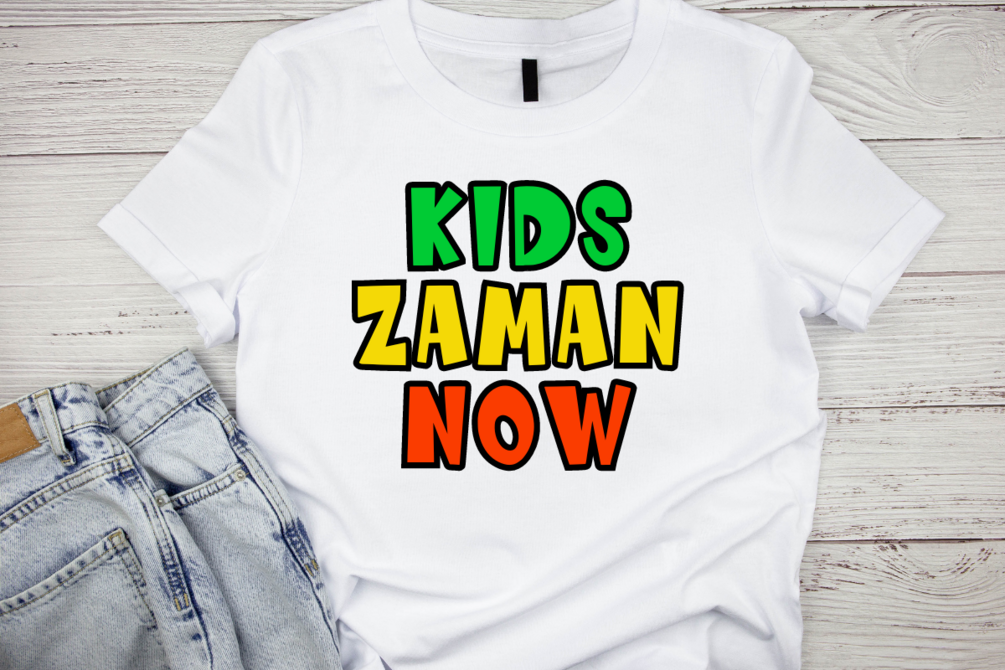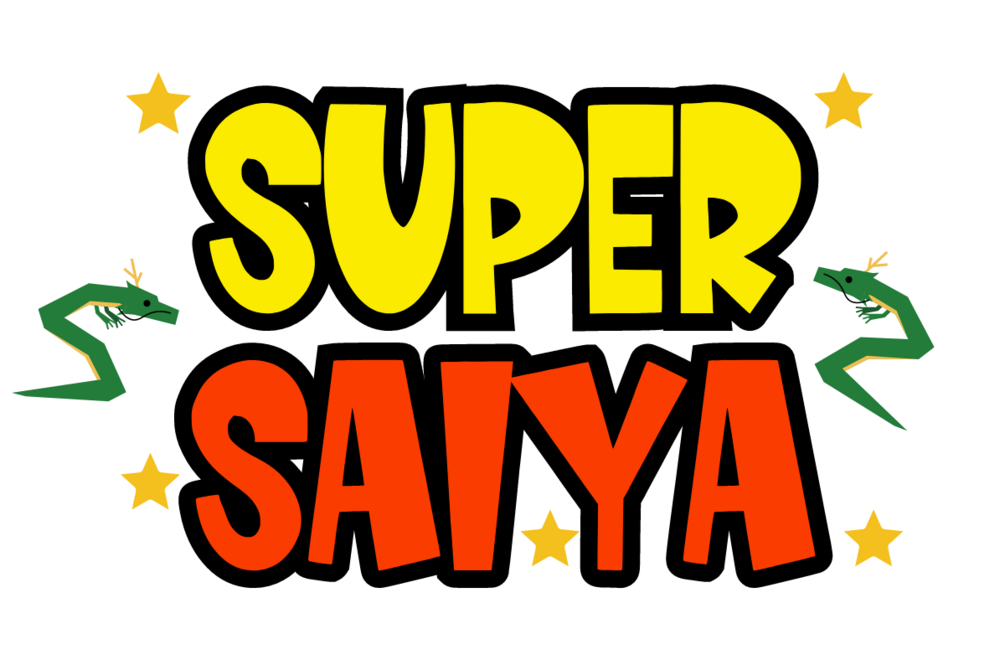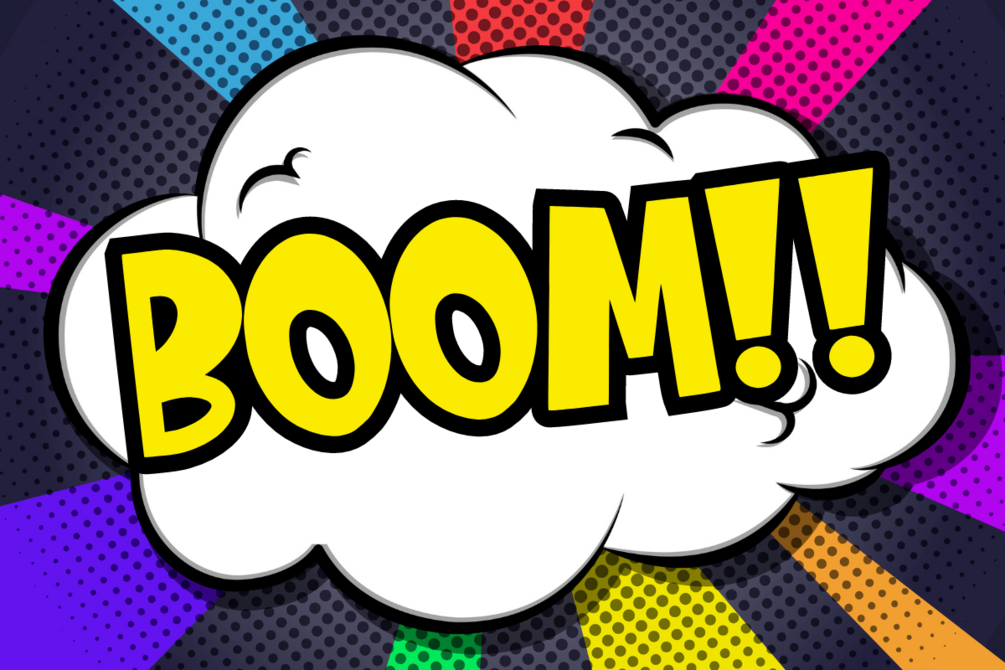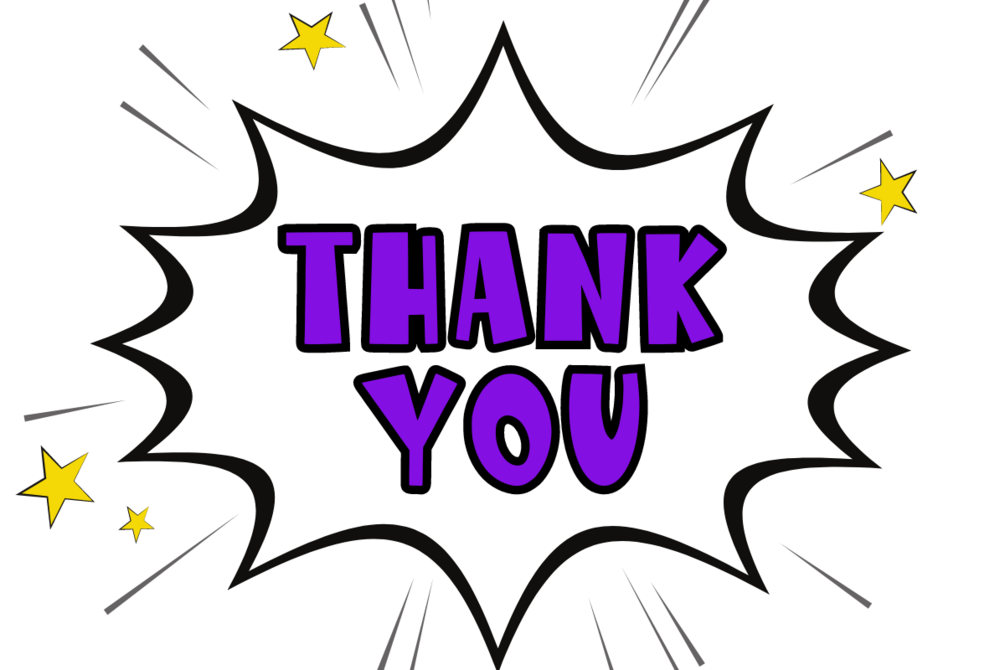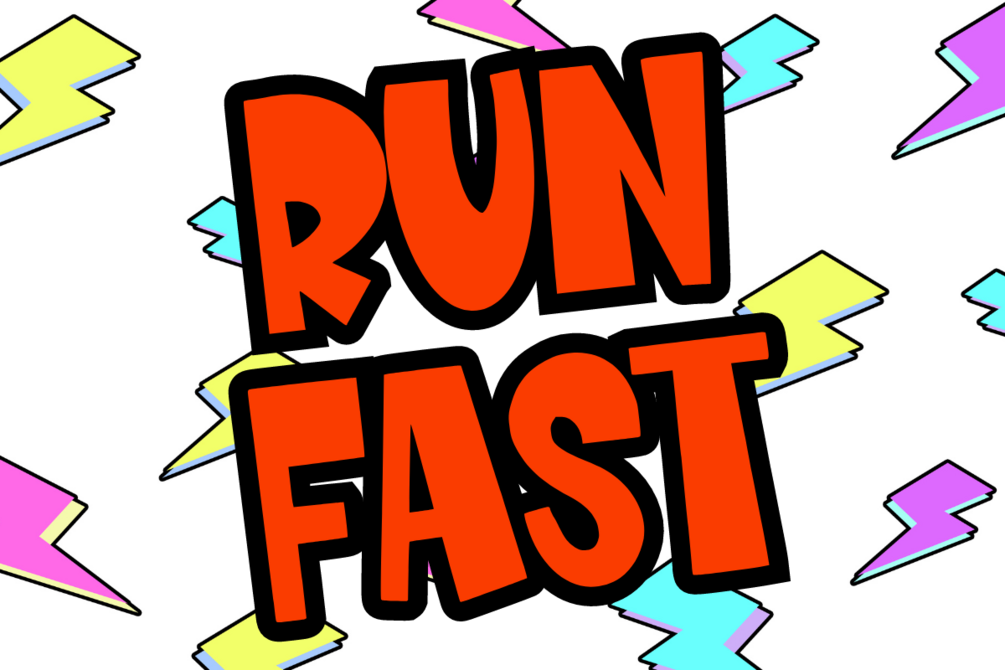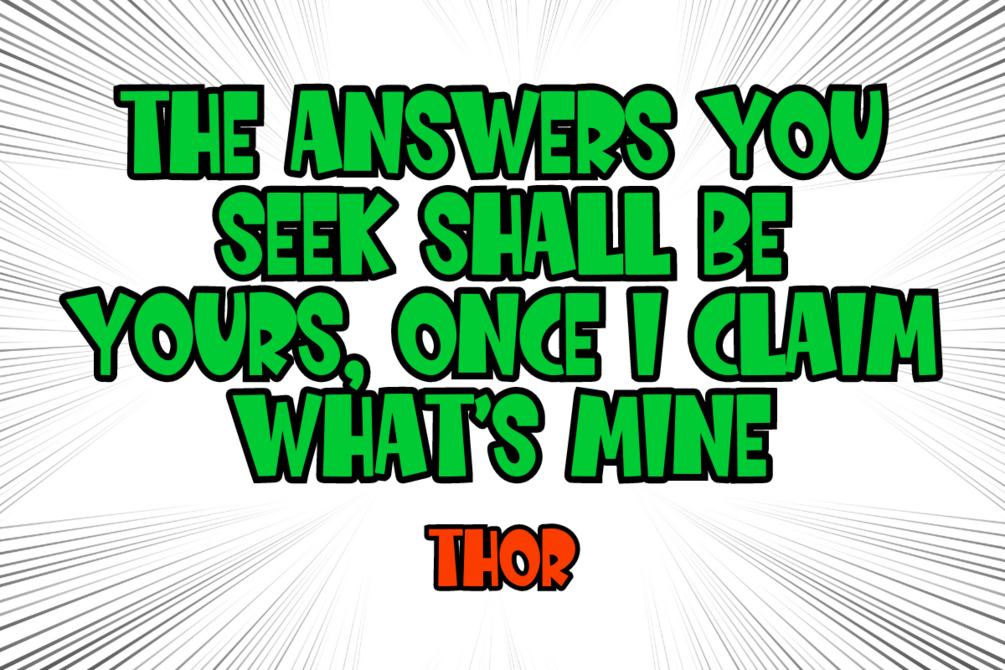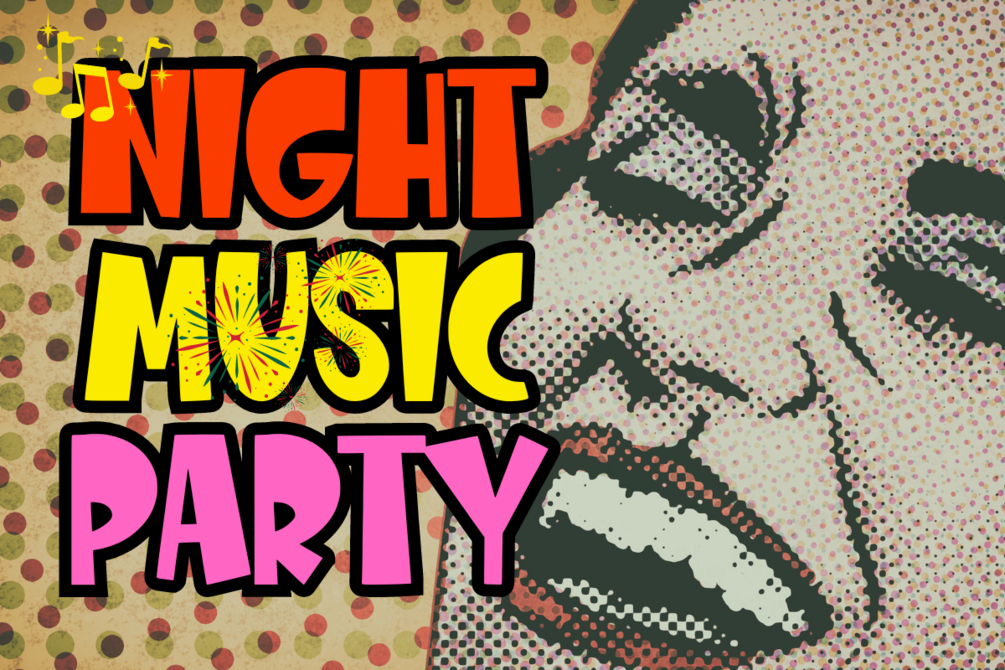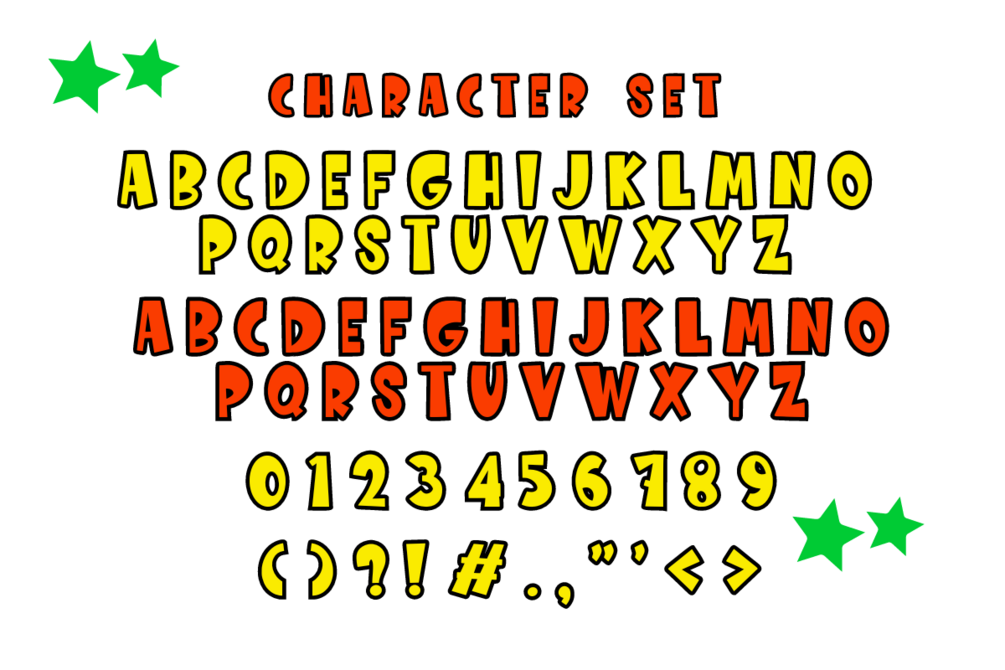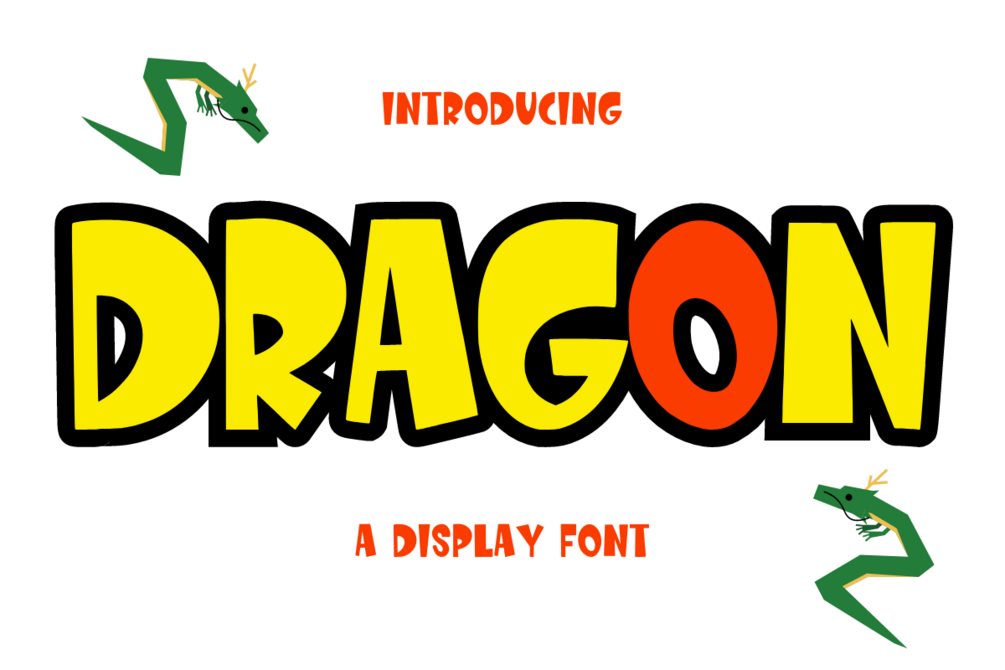
Dragon - A Display Font
Dragon is a cool, bold, and fun display font. Add it with confidence to your favorite creations and let yourself be amazed by the results.